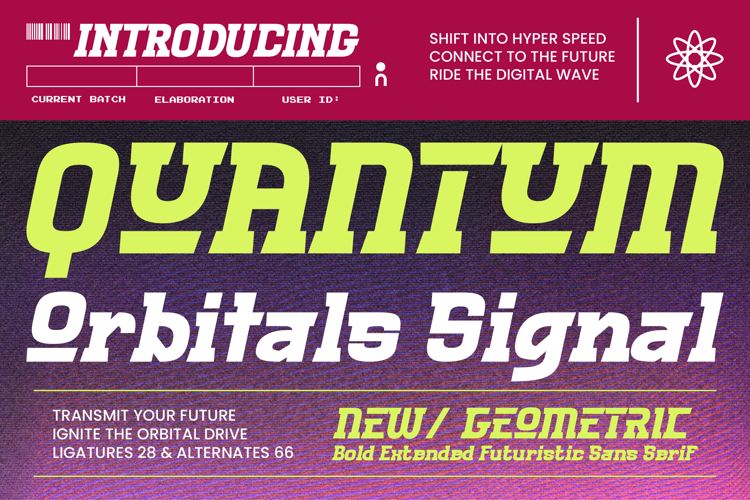
Quantum Orbitals Signal Bold Extended Futuristic Sans Serif
Quantum Orbitals Signal – Bold Extended Futuristic Sans Serif
Redefine the visual landscape of modern technology with a typeface built for speed and power. Quantum Orbitals Signal – Bold Extended Futuristic Sans Serif commands attention with its high-impact typography and futuristic aesthetic, making it the definitive choice for projects requiring visual dominance. This typeface embodies a sense of momentum, perfectly capturing the essence of the digital age through its wide-track letterforms and slanted, energetic stance.
Bridge the gap between digital innovation and global accessibility through superior design. With its extensive multilingual support, Quantum Orbitals Signal – Bold Extended Futuristic Sans Serif adapts seamlessly across global markets, making it incredibly versatile for international projects. It maintains uncompromising legibility even at high speeds, ensuring that your message remains clear while projecting a high-tech image of technological precision and forward-thinking design.
Experience the perfect synergy of geometric precision and dynamic energy within a single weight. Quantum Orbitals Signal – Bold Extended Futuristic Sans Serif features a bold extended structure that excels in large-scale displays, bringing a cinematic quality to any layout. Its modern geometric structure is optimized for digital interfaces and high-definition screens, allowing designers to push the boundaries of sci-fi themes and cutting-edge branding.
Transform your creative vision into a tangible reality with unparalleled authority across multiple industries. Quantum Orbitals Signal – Bold Extended Futuristic Sans Serif is perfect for luxury branding, packaging, and editorial design that demands a sophisticated, high-octane look. It is the ideal application for the gaming industry, automotive marketing, and cinematic posters, providing a versatile toolkit for any designer looking to define the future of graphic communication.